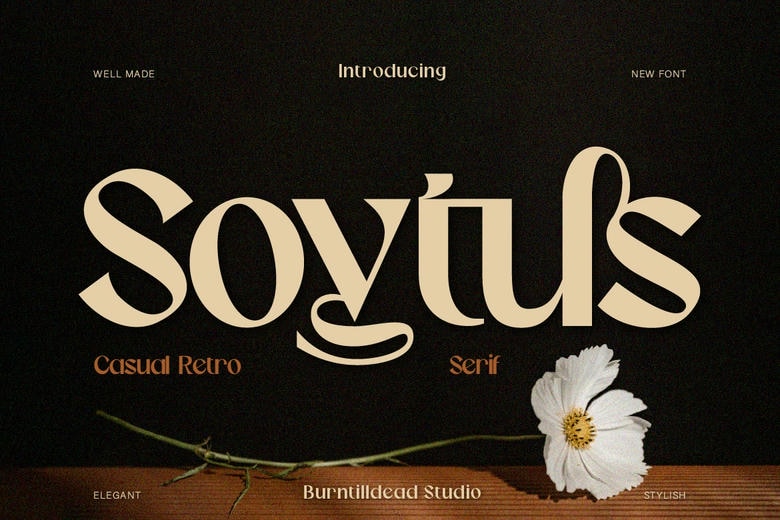
Soytus Font
Soytus Font, our casual retro type. This font includes old world style with new age appeal. Its lines are straight and curves are minimal and this gives it an ergonomic looks. The ligatures look more official and professional. Also this font supported multilingual language that means it has basic European accent. It is suitable for branding identification logo, editorial design, poster, web design, jewelry, headlines luxurious brands and so on, that require elegance sense.
Soytus Serif Font